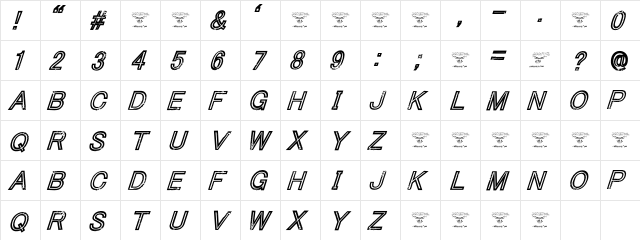
Tha Cool Kidz Italic
Design Context for Tha Cool Kidz Typeface
Tha Cool Kidz is a composed and adaptable typeface that performs quietly and consistently across a wide range of design contexts. The dynamic lean of this cut emphasises speed and emphasis in any layout.
Pro Tip: Try Tha Cool Kidz for annotation and caption copy alongside an upright companion — the contrast in angle creates a dynamic but ordered typographic system.